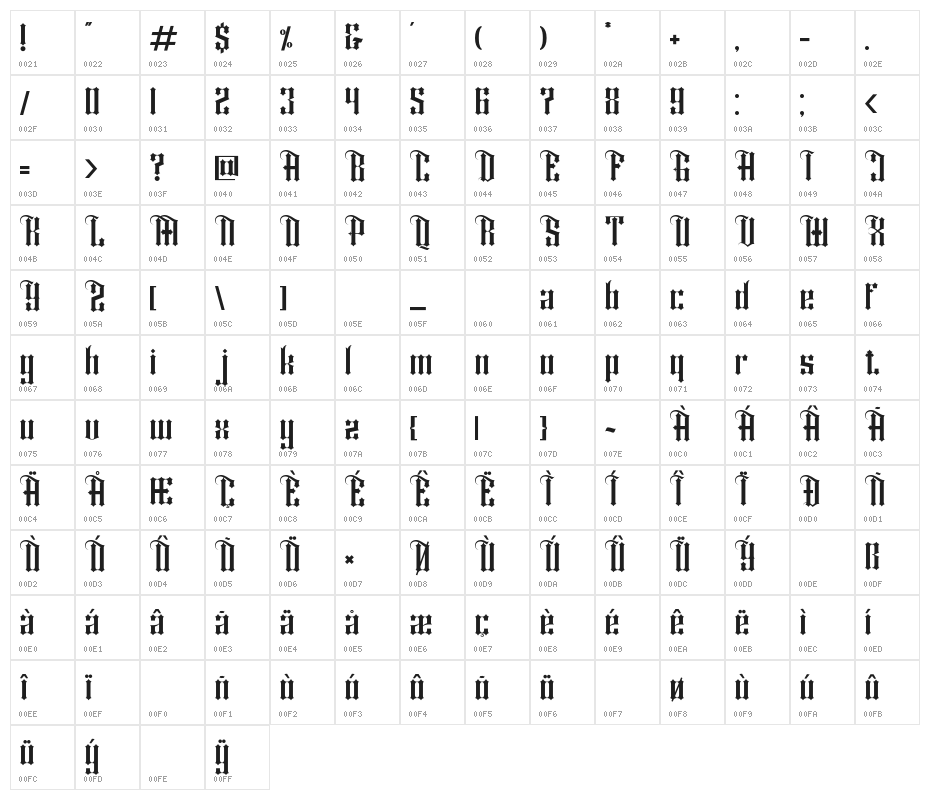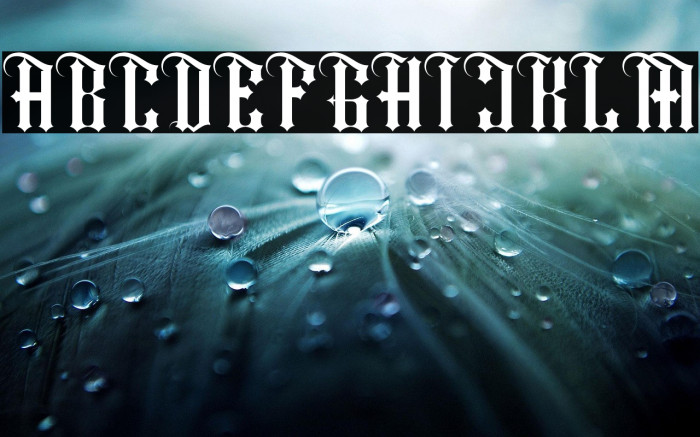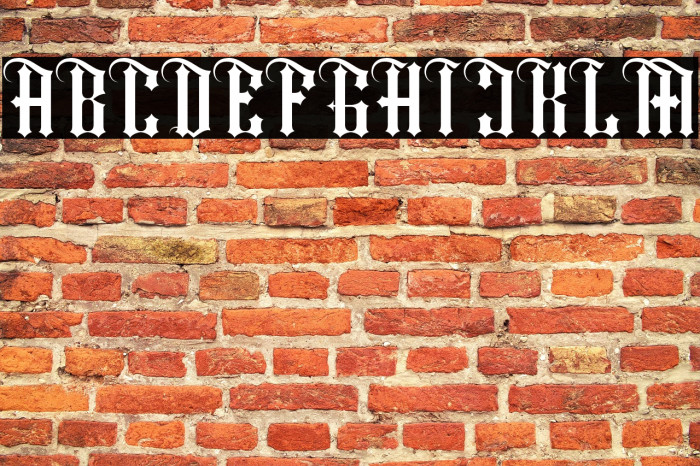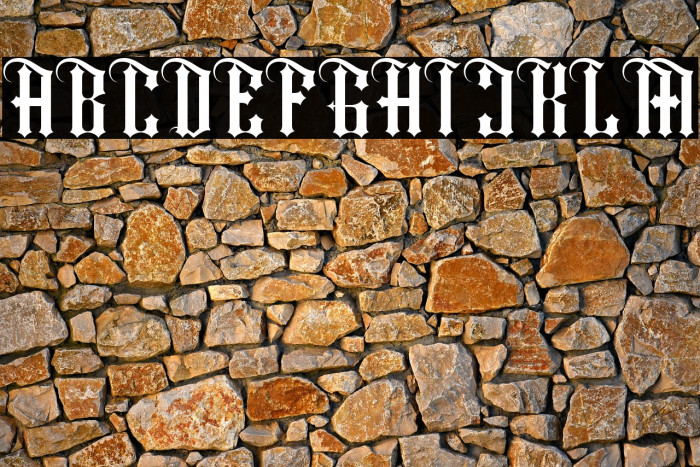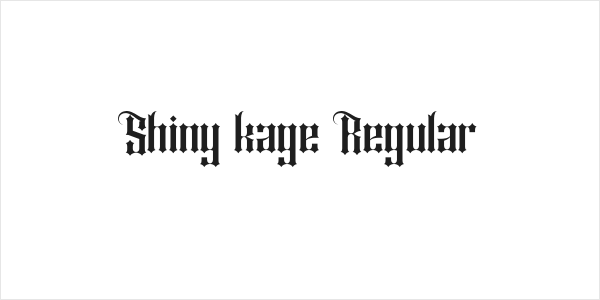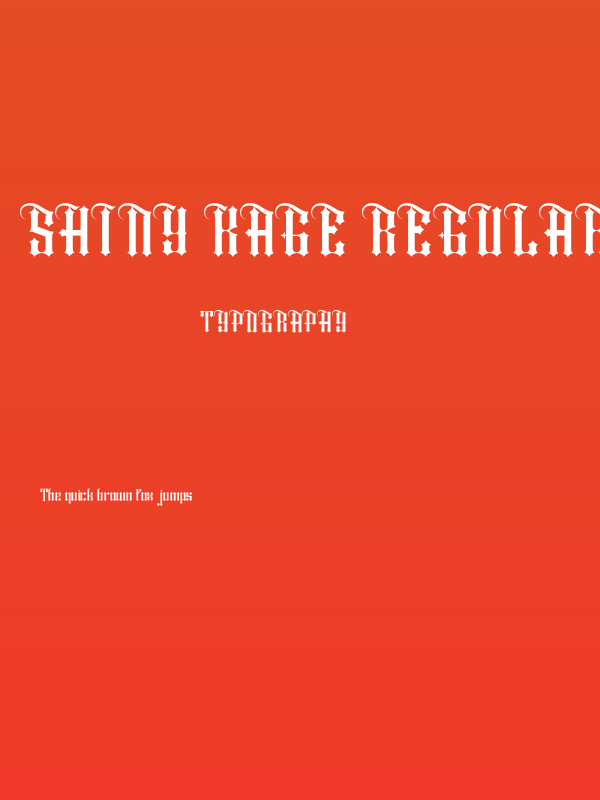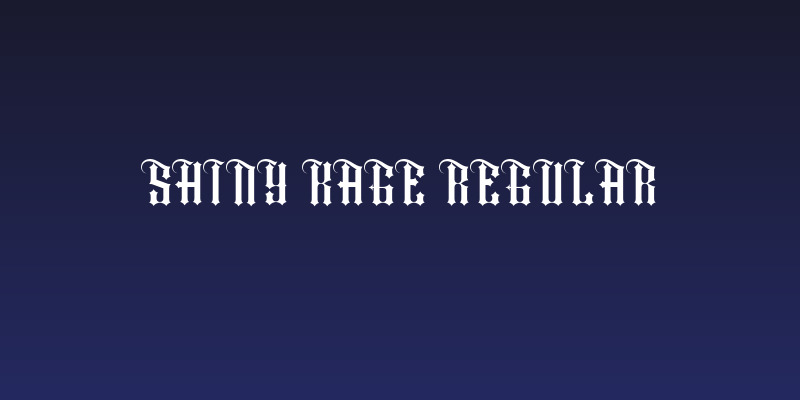
Shiny kage Regular Font
Shiny kage Regular Description
This font exudes a bold and dramatic presence, characterized by its intricate and ornate design reminiscent of traditional Blackletter styles. The letters are sharply defined with pointed edges and elaborate curves, creating a sense of historical elegance and authority. Each character is crafted with precision, featuring high contrast between thick and thin strokes, which enhances its readability despite the complex design. The font's unique aesthetic makes it suitable for projects that require a touch of vintage sophistication or a medieval theme.